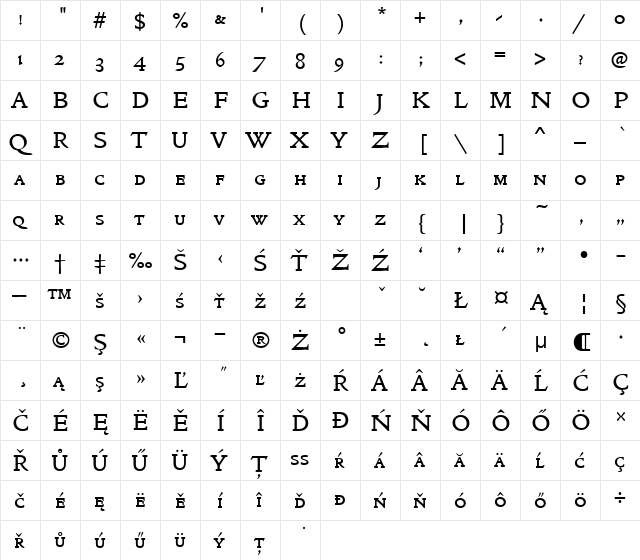
GoldeTypItcSCTEE Regular Font Preview
GoldeTypItcSCTEE Regular
Design Context for GoldeTypItcSCTEE Typeface
GoldeTypItcSCTEE offers clean, dependable letterforms without strong stylistic allegiance, making it a practical choice for designers who need flexibility.